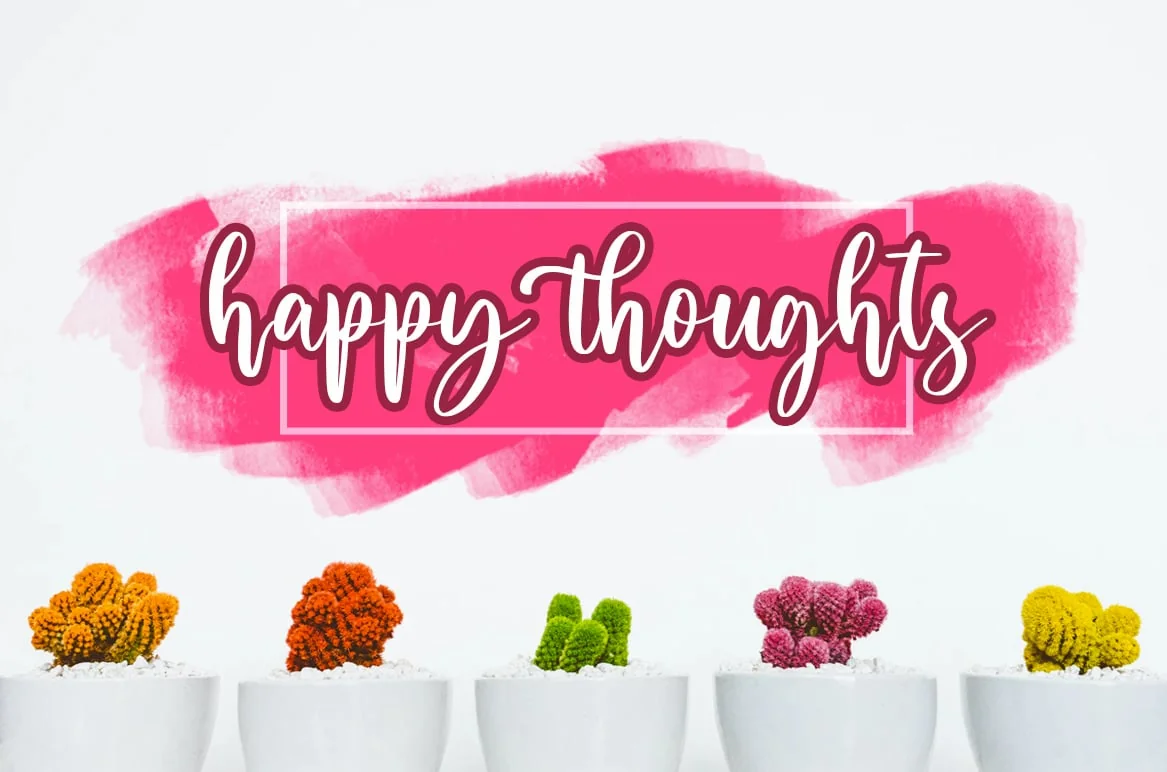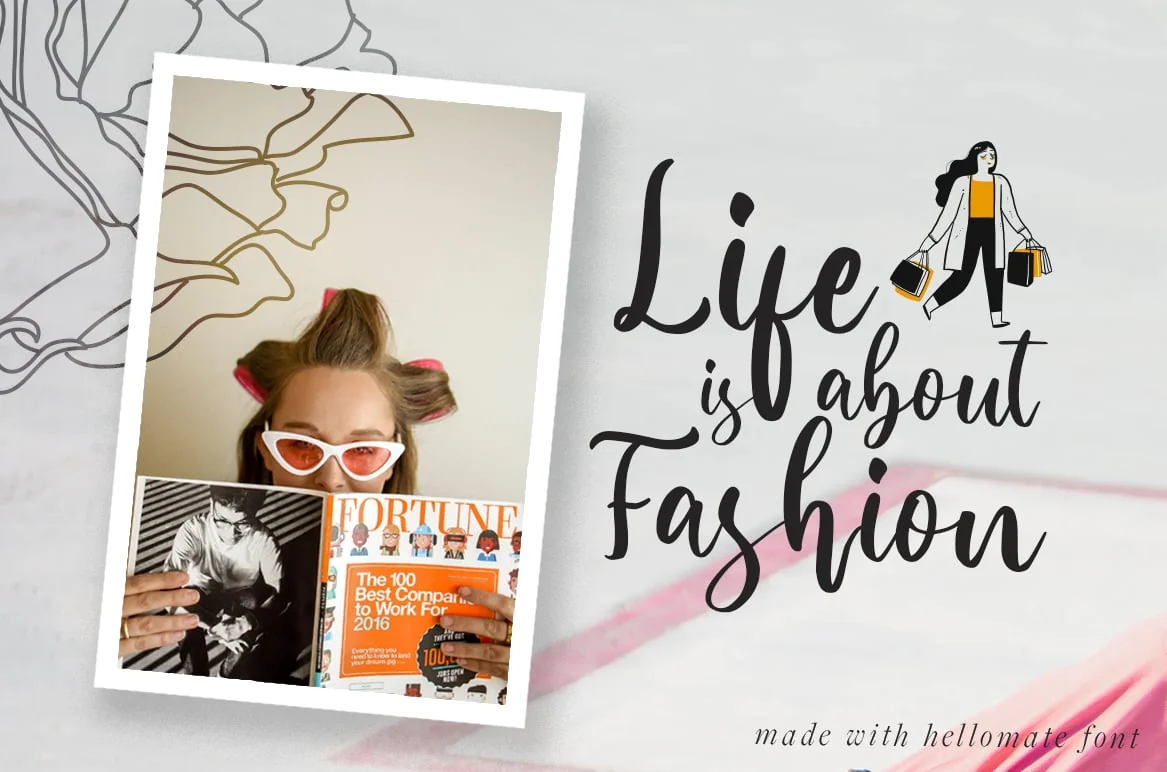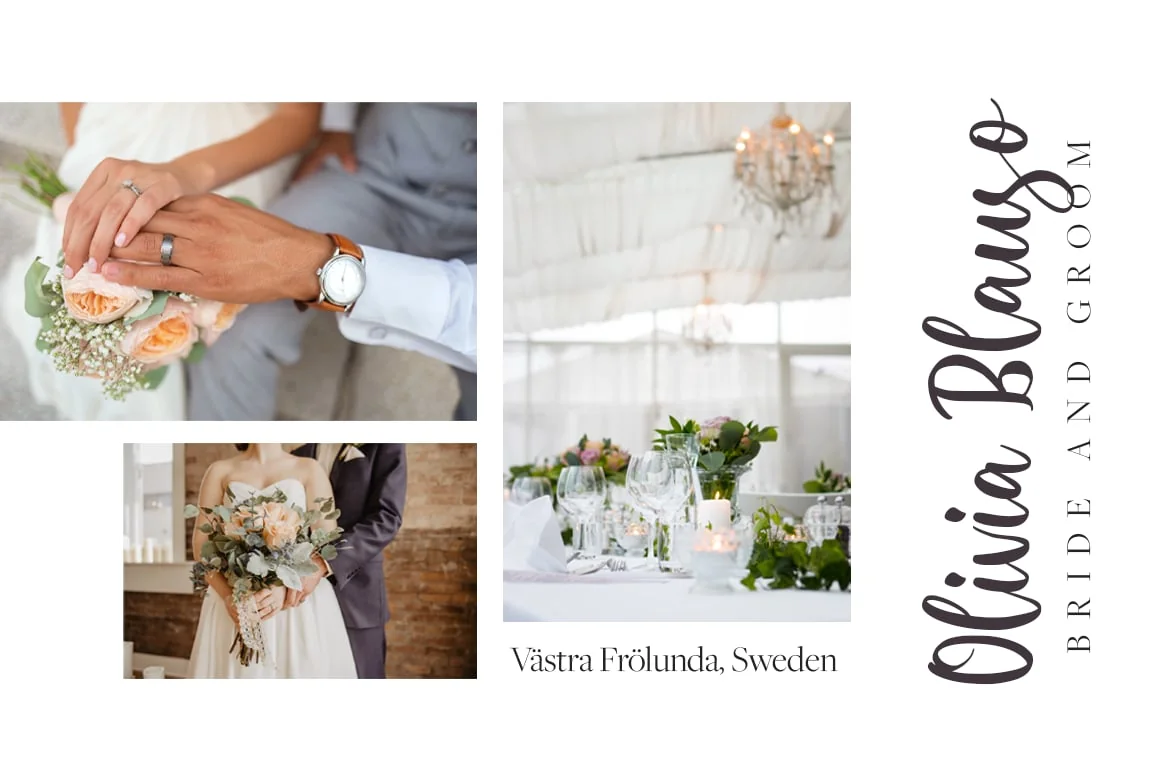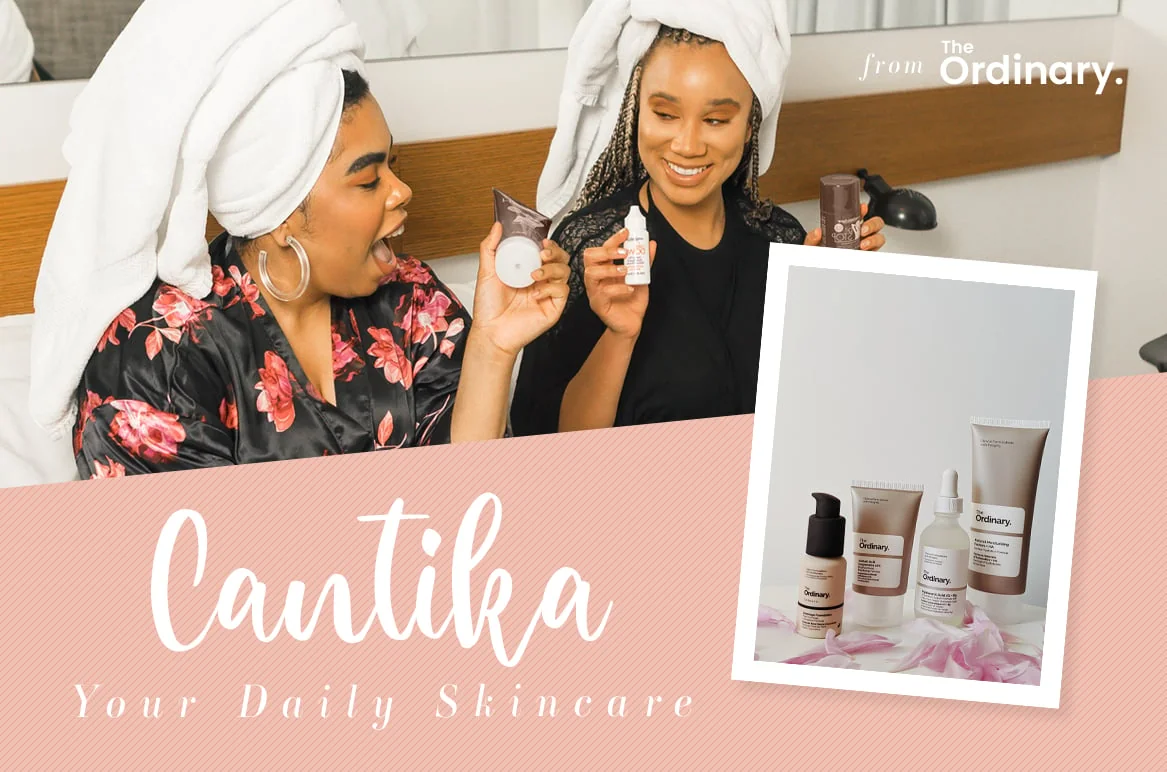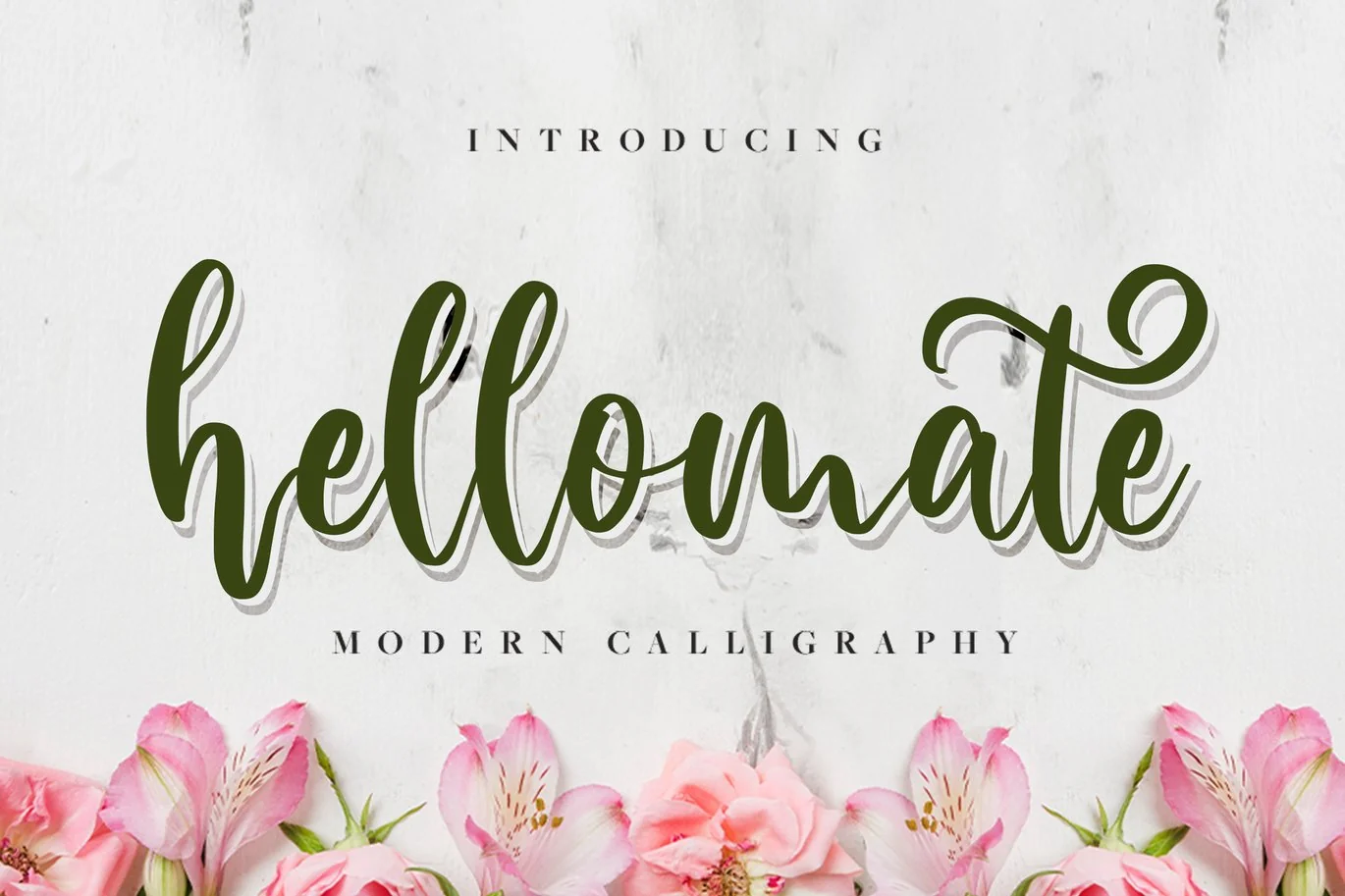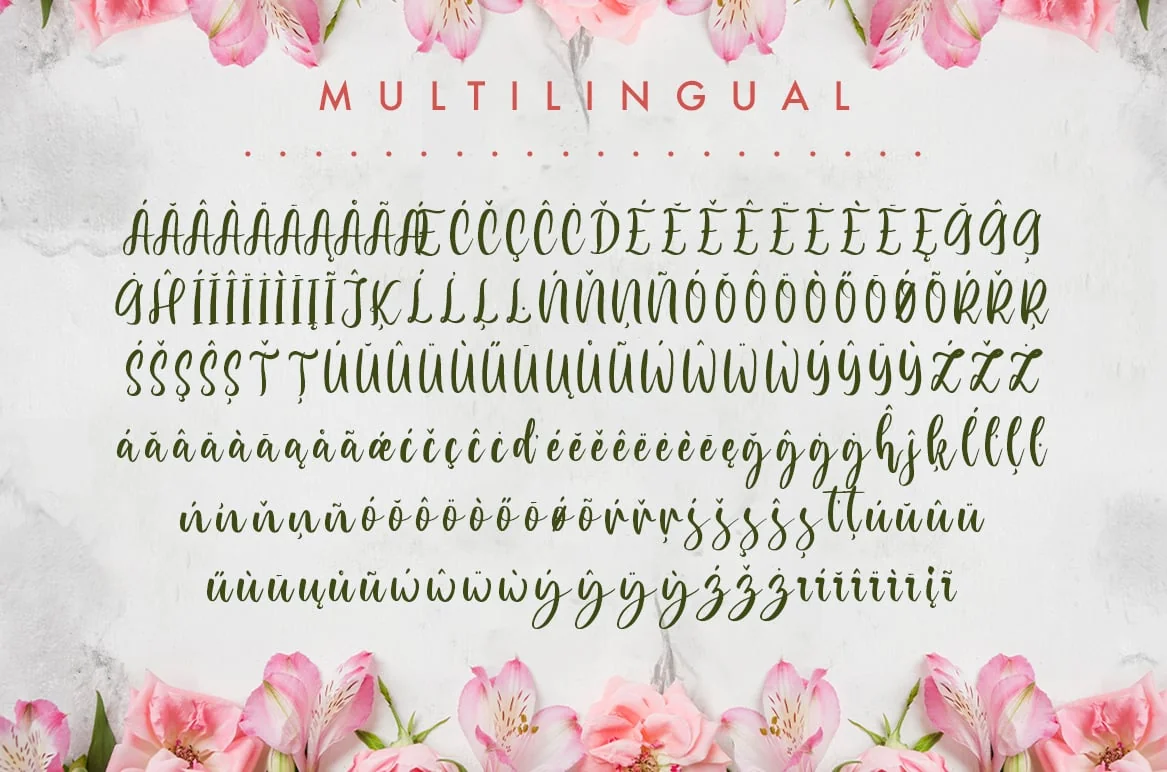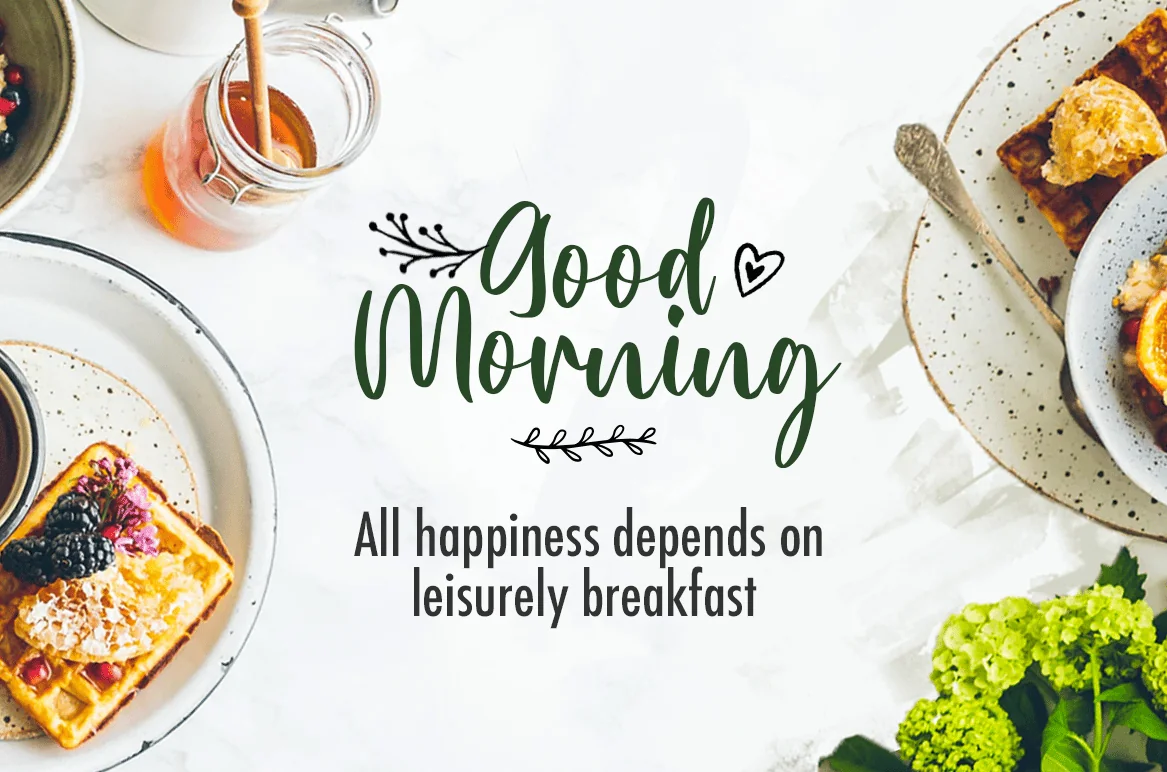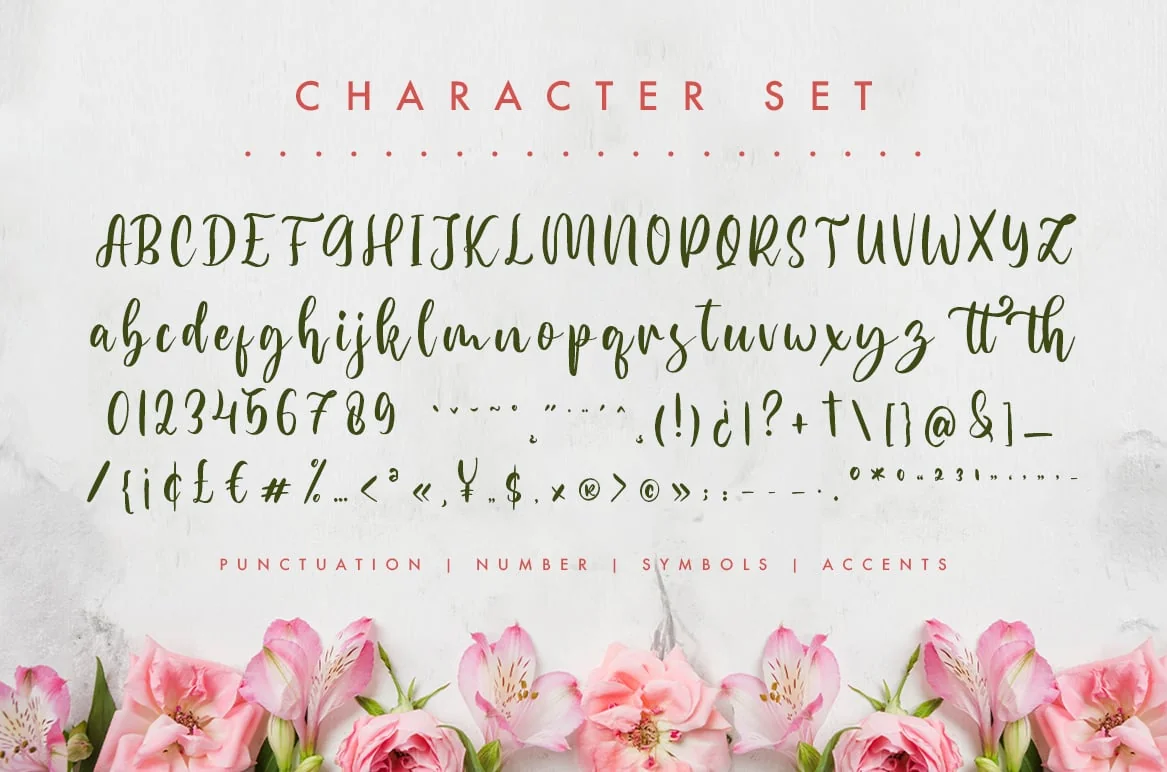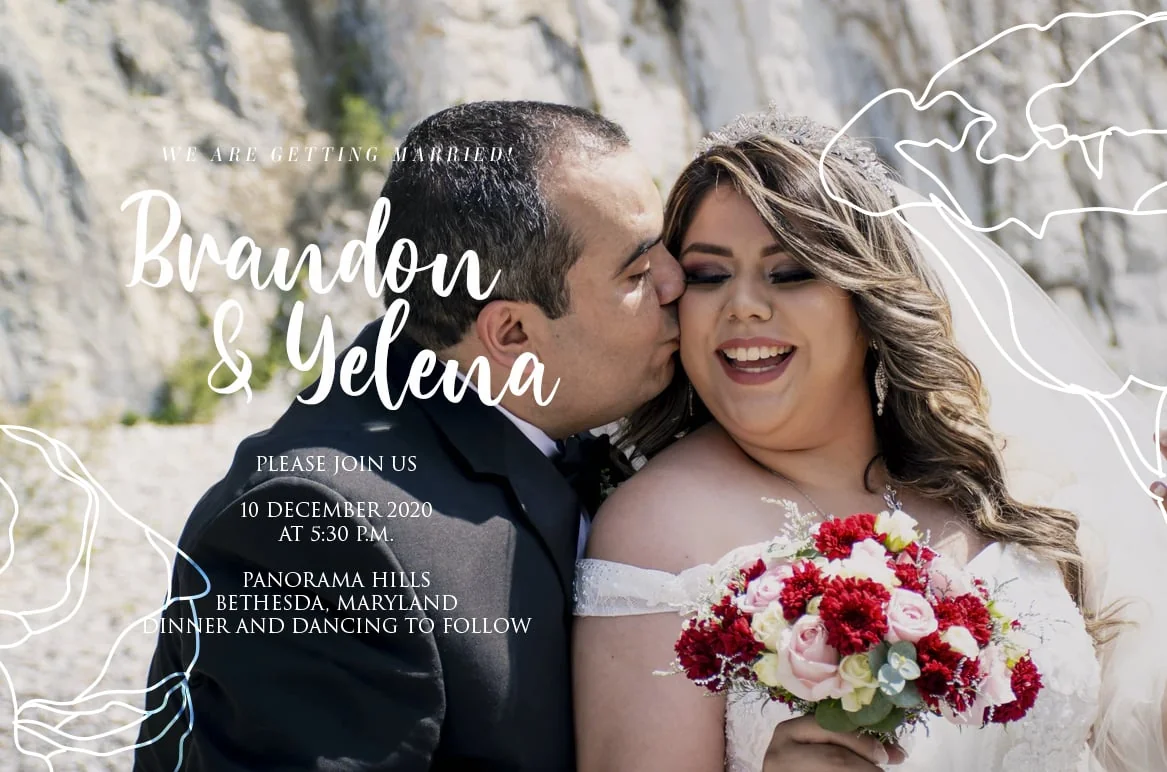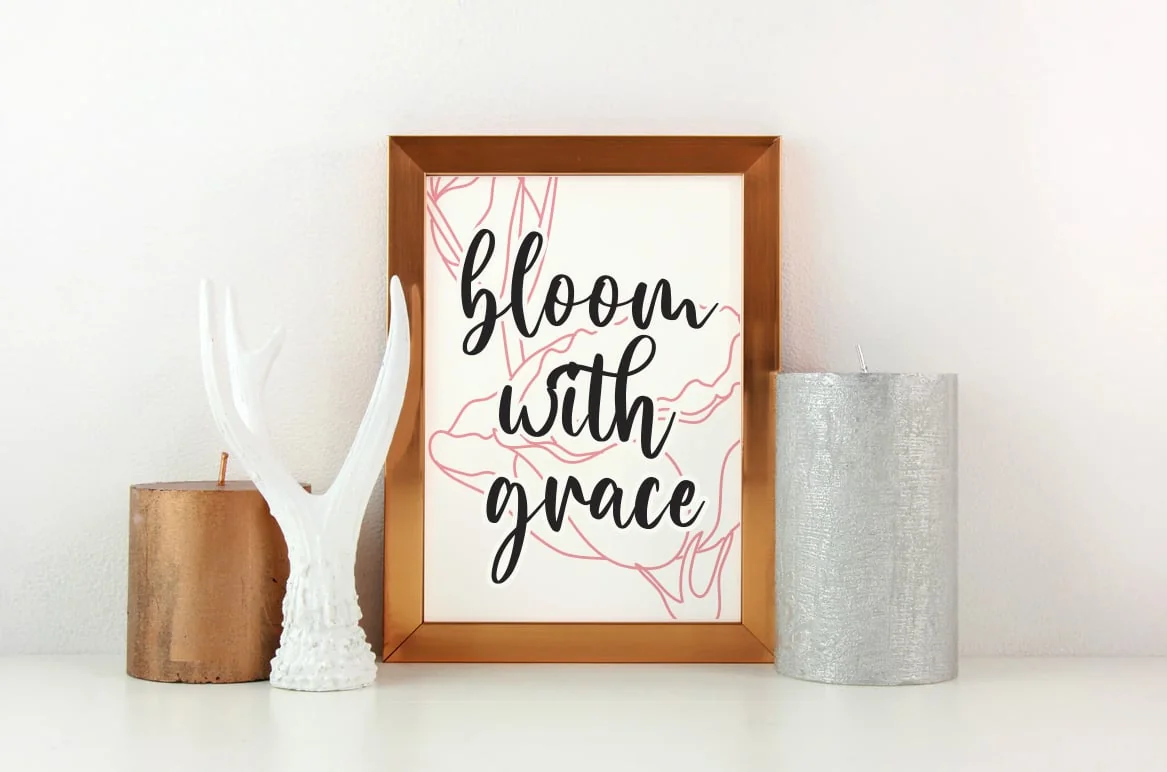
Hellomate – Wedding Font
Hellomate is a cute and casual handwritten font, featuring an incredibly friendly feel. Its distinct and well rounded letters make this font a masterpiece. Fall in love with its incredibly versatile style and use it to create spectacular designs!
- Ligatures, Swash, Alternates
- Letters, Numbers, punctuation